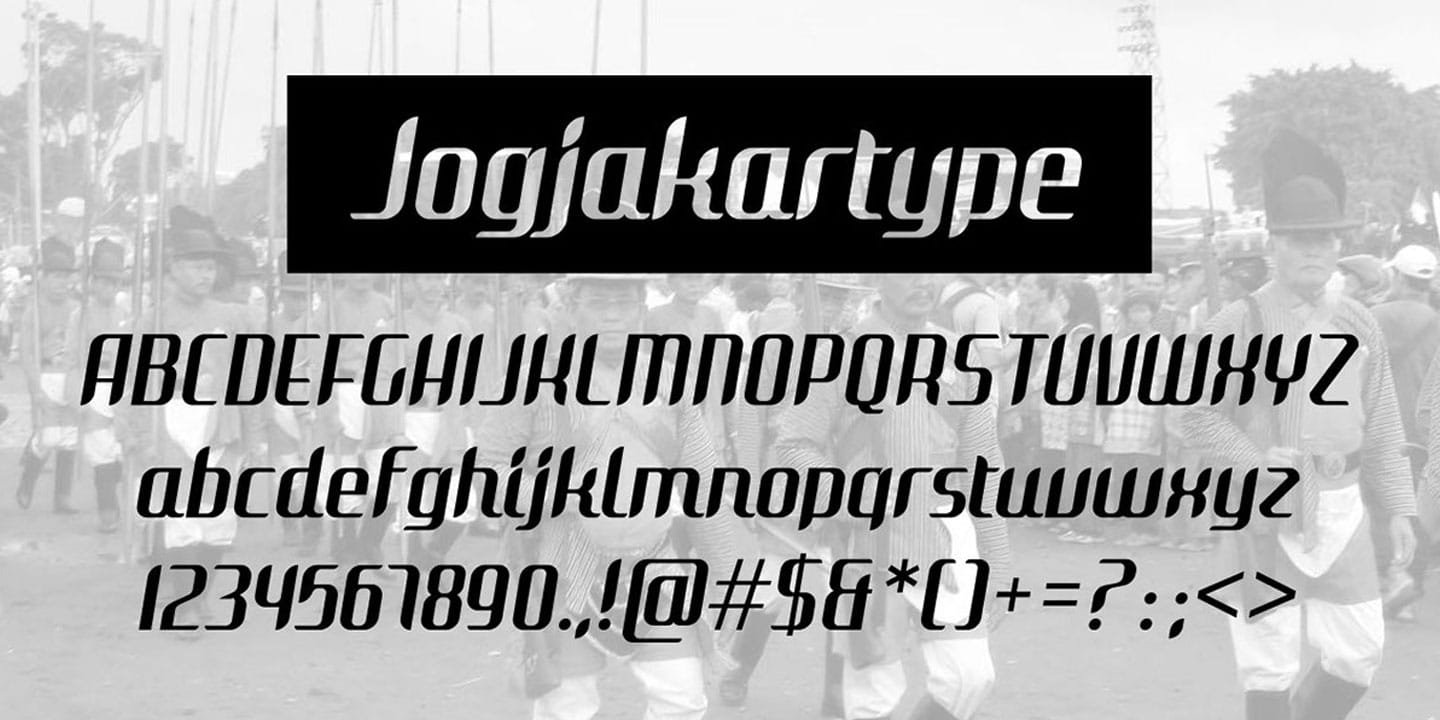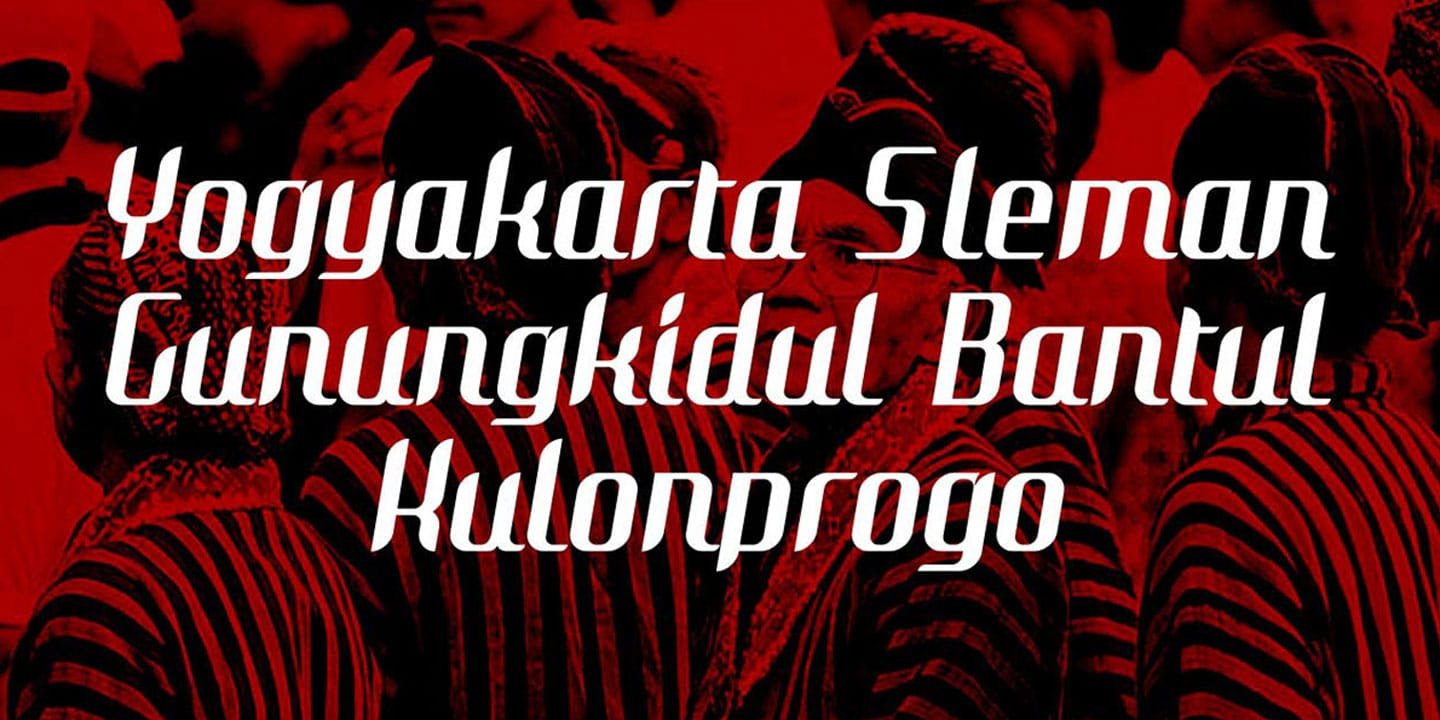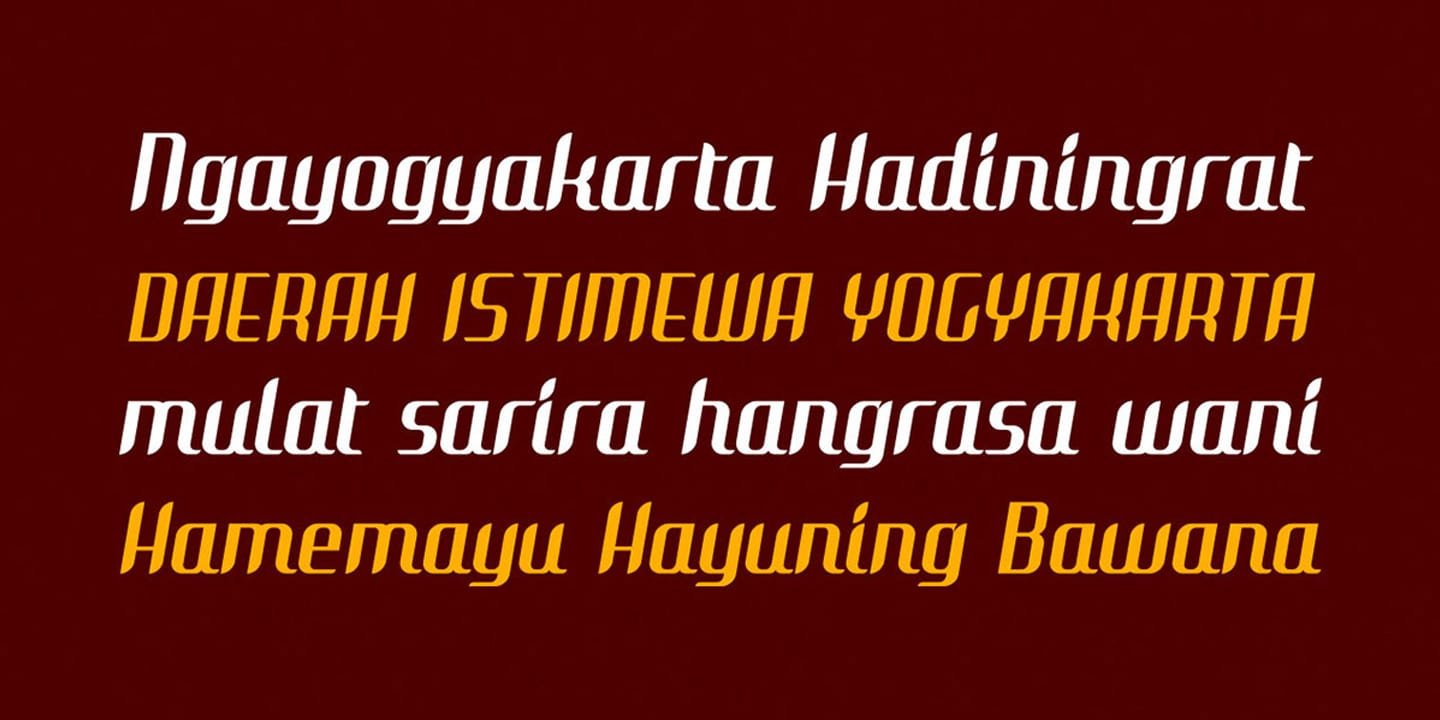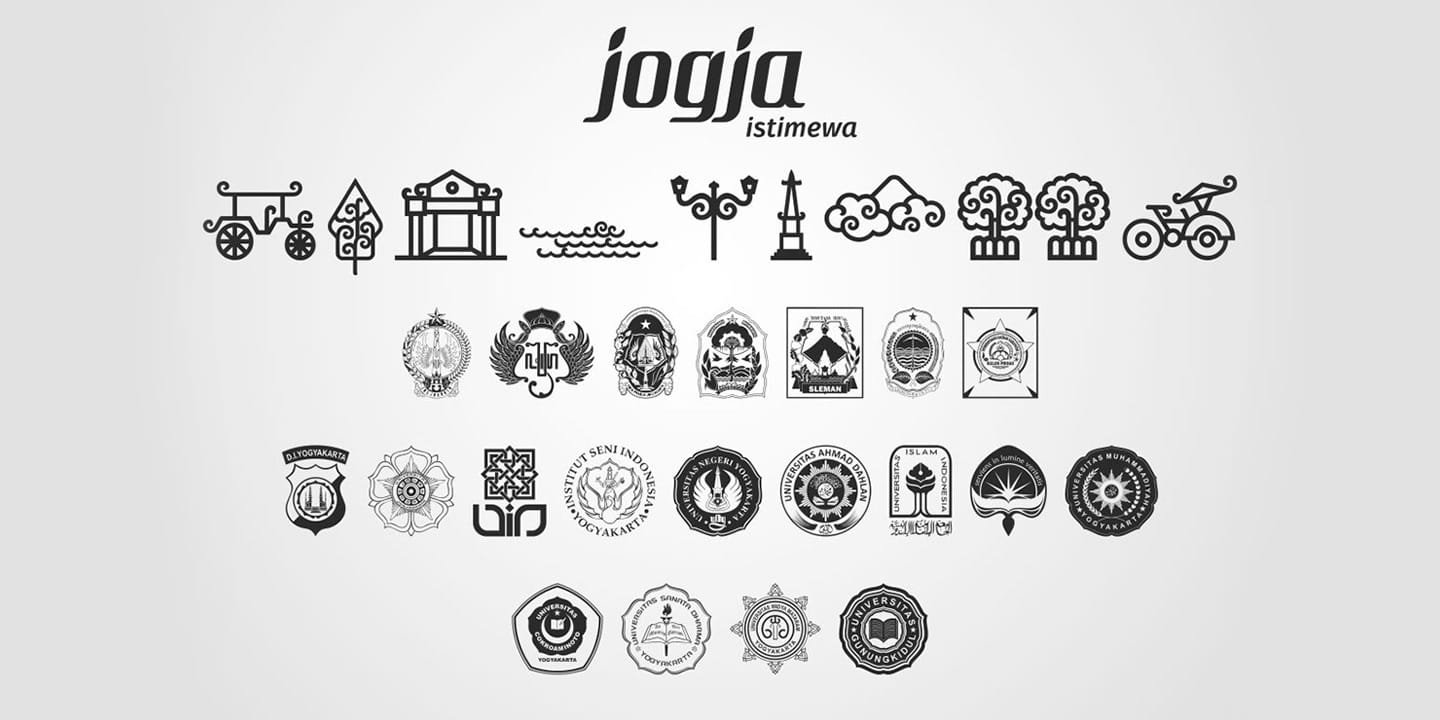
In 2015, the Special Region of Yogyakarta introduced its new city branding under the slogan “Jogja Istimewa”. One of the most recognizable elements of this identity is its distinctive lowercase wordmark, designed to reflect the values of equality, openness, simplicity, and the unique spirit of Yogyakarta.
At Locomotype, we developed Jogjakartype, a custom typeface derived from the official “Jogja Istimewa” wordmark. The project was created with a simple purpose: to help communities, organizations, and designers seamlessly incorporate Yogyakarta’s visual identity into digital media without having to recreate the lettering manually.
While the original logo exists only as a graphic mark, Jogjakartype transforms its letterforms into a fully functional typeface that can be used just like any other font. This allows users to create headlines, posters, social media graphics, presentations, and promotional materials while maintaining consistency with the official “Jogja Istimewa” identity.
Alongside the main typeface, we also developed Jogjakartype Logos, a companion icon font containing official symbols and logos associated with the Special Region of Yogyakarta. Together, these fonts provide a practical toolkit for designers, institutions, and communities promoting Yogyakarta across various digital platforms.
Jogjakartype was never intended to be a commercial product. Instead, it represents our small contribution to the creative community by making Yogyakarta’s official visual identity more accessible to designers, students, institutions, and local communities.
We hope this typeface helps preserve the consistency of the “Jogja Istimewa” brand while inspiring more creative works that celebrate one of Indonesia’s most culturally significant regions. As with all of our type design projects, we believe typography is more than a collection of letterforms, it is a medium for preserving identity, strengthening communication, and supporting the communities it serves.